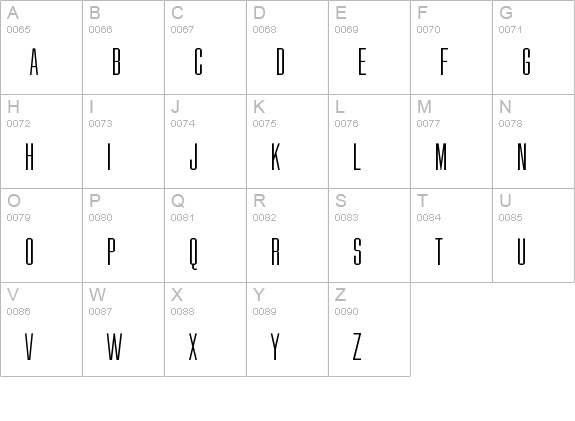
ChamferGothicRR Light is a refined, elegant variant in the ChamferGothicRR typeface family \xE2\x80\x94 well suited to elegant body text, refined sub-headings, and luxury branding.
ChamferGothicRR Light font is a sleek and modern typeface that exudes sophistication and elegance. Its clean lines and sharp edges make it perfect for a wide range of design projects, from branding to editorial layouts. This font strikes a perfect balance between classic and contemporary, making it versatile and timeless. The best part about ChamferGothicRR Light font is that it is completely free to download! You can get your hands on this stunning font at FontsMarket.com, where you can easily access and install it for your creative endeavors. Whether you're working on a logo, website, or any other design project, ChamferGothicRR Light font is sure to elevate your work and make a lasting impression.